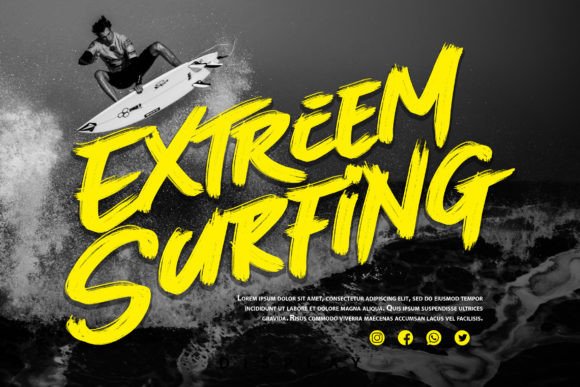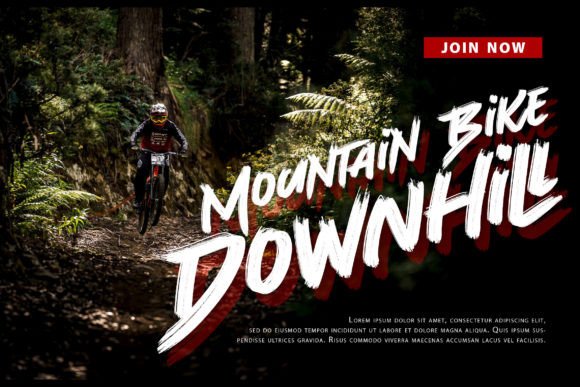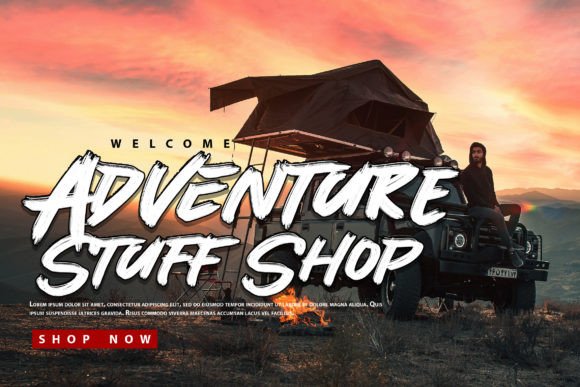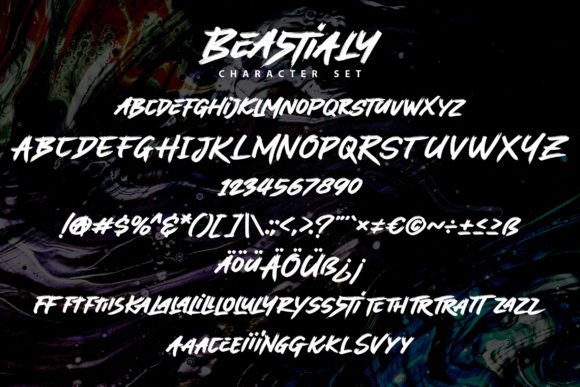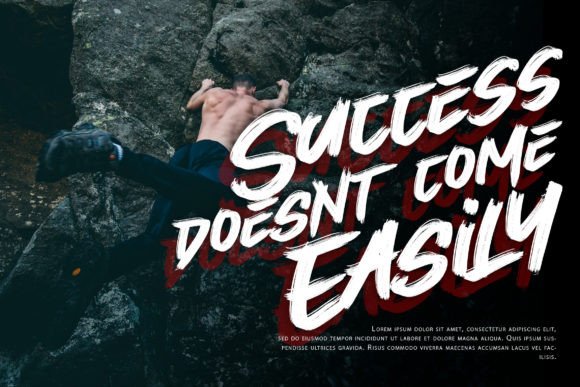
Unleash Your Creativity with Beastialy Font: A Cool and Modern Brush Display Font
In the world of typography, fonts play a crucial role in conveying messages, evoking emotions, and setting the tone for creative projects. For designers, crafters, and anyone looking to add a personal touch to their work, having the right font can make all the difference. This is where Beastialy Font comes into play – a cool and modern brush display font that has the potential to elevate any creation. In this article, we’ll dive into the features, benefits, and uses of Beastialy Font, and explore how it can become a valuable asset in your font library.
What is Beastialy Font?
Beastialy Font is a unique and stylish brush display font that boasts a modern and edgy aesthetic. Its distinctive lettering style, characterized by bold brush strokes and a dynamic feel, makes it perfect for a wide range of creative projects. Whether you’re working on a logo, a poster, a social media graphic, or any other visual material, Beastialy Font is designed to add a touch of personality and flair.
Key Features of Beastialy Font
- Cool and Modern Design: Beastialy Font features a contemporary design that is sure to capture attention. Its modern aesthetic makes it versatile enough to be used in various contexts, from digital media to print materials.
- Brush Display Style: The font’s brush display style gives it a unique, hand-crafted feel. This style is perfect for creating eye-catching headlines, titles, and slogans that stand out.
- High Versatility: Beastialy Font can be used across a multitude of topics and themes. Whether your project is related to fashion, technology, food, or travel, this font can adapt and enhance your message.
Benefits of Using Beastialy Font
Adding Beastialy Font to your font library comes with several benefits:
- Enhanced Creativity: With its distinctive style, Beastialy Font can inspire creativity and help you produce unique designs that reflect your personal or brand’s identity.
- Professional Look: The font’s high-quality design ensures that your projects look professional and polished, which is crucial for building a strong visual brand.
- Time-Saving: Having a versatile font like Beastialy can save you time in searching for the right typography for your projects, allowing you to focus on other creative aspects.
- Cross-Platform Compatibility: Beastialy Font can be used across different platforms and design tools, providing flexibility in your creative workflow.
How to Use Beastialy Font Effectively
To maximize the potential of Beastialy Font, consider the following tips:
- Pair it with Complementary Fonts: For optimal results, pair Beastialy Font with simpler fonts to create contrast and ensure readability, especially in longer texts.
- Experiment with Colors and Textures: Take advantage of the font’s bold style by experimenting with different colors and textures that can enhance its appearance.
- Use it for Headlines and Titles: Beastialy Font is best used for headlines and titles where you want to make a strong visual impact. Its boldness and unique style are perfect for grabbing attention.
Beastialy Font is more than just a cool and modern brush display font; it’s a tool that can transform your creative projects with its unique style and versatility. Whether you’re a professional designer or a crafting enthusiast, adding Beastialy to your font library can open up new possibilities for expression and innovation. With its ease of use, professional look, and adaptability, Beastialy Font is poised to become your go-to choice for a wide range of design needs.
Embrace the creative potential of Beastialy Font and discover how it can elevate your designs to new heights. Explore its features, experiment with its capabilities, and let your creativity shine with this wonderful asset to your font library.